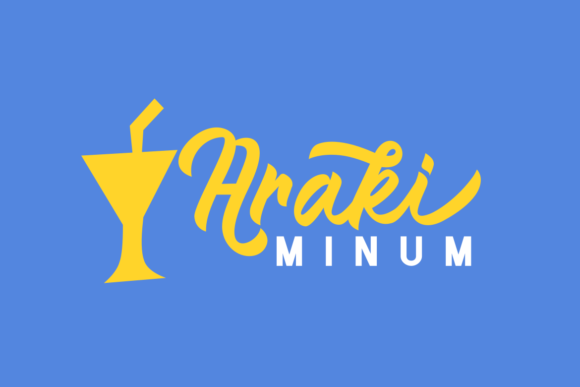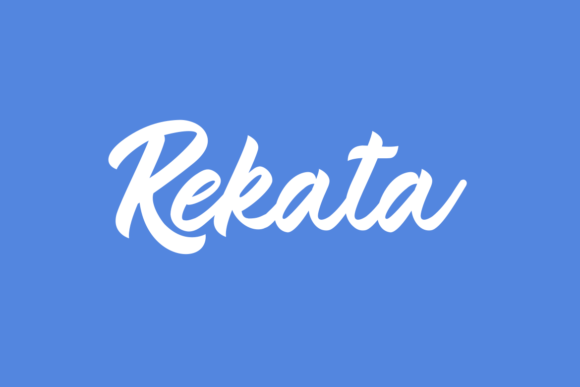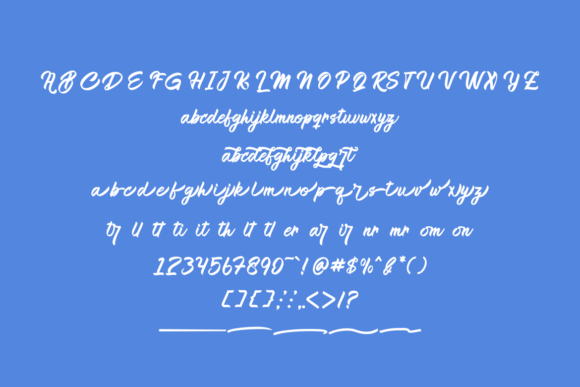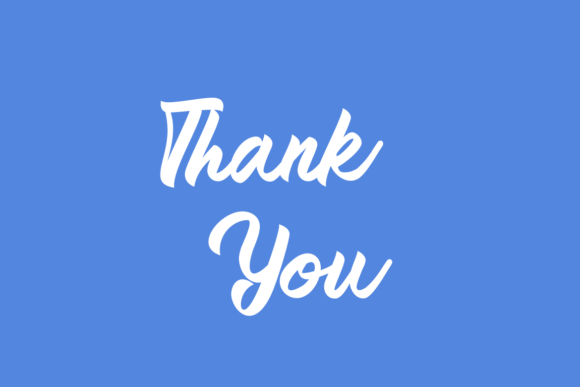
Blarak Font: Elevate Your Designs with a Touch of Handwritten Elegance
In the world of typography, handwritten fonts hold a special place for their unique ability to add a personal touch to any design. Among these, the Blarak Font stands out as a gem, offering a blend of elegance and playfulness that can elevate a wide range of projects. Whether you’re a designer looking for the perfect font for a logo, branding, or a crafter seeking an attractive typeface for invitations, watermarks, or wedding designs, Blarak is a versatile choice that promises to inspire.
The Charm of Blarak Font
Blarak is a handwritten font that embodies the essence of personal and creative expression. Its fancy and distinctive look makes it an ideal choice for projects that demand a touch of sophistication and uniqueness. From professional branding to personal stationery, Blarak’s charm lies in its ability to bring a sense of warmth and approachability to the text.
One of the key advantages of the Blarak Font is its versatility. It’s perfect for a myriad of applications including:
- Logos & Branding: Create a memorable brand identity with a logo that stands out.
- Photography: Add a professional touch to your photo captions or watermarks.
- Invitations: Make your invitations special with a personal and elegant touch.
- Advertisement: Capture attention with unique and stylish text.
- Product Design: Enhance your product labels or packaging with a distinctive look.
- Stationery: Elevate your personal or business stationery with class.
- Wedding Designs: Add romance and elegance to your wedding invitations, programs, or decorations.
- Labels & Special Events: Perfect for any occasion that requires a personal and stylish touch.
Blarak Font comes with PUA (Private Use Area) encoding, making it incredibly user-friendly. This feature allows you to access all the cute glyphs and swashes easily, giving you the flexibility to experiment with different styles and combinations without hassle. Whether you’re looking to add a playful swash to your design or require a specific glyph to match your theme, Blarak’s PUA encoding ensures you’re equipped with the tools you need.
Rich in Features
Beyond its beautiful appearance, Blarak Font is also rich in features that make it a valuable asset for designers:
- Alternate Glyphs: Offers variations of letters and symbols, allowing for diverse design options.
- Ligatures: Combines letters and symbols in a unique way, adding an artistic flair to your text.
Getting Inspired with Blarak
The unique look of Blarak Font is sure to inspire a plethora of creative ideas. Designers and crafters can experiment with the font in various contexts, from digital platforms to print media. Its handwritten nature lends itself well to:
- Storytelling: Bring narratives to life with a font that feels personal and engaging.
- Branding: Create a cohesive brand voice that resonates with your audience.
- Art Projects: Incorporate Blarak into your artwork for a distinctive touch.
Blarak Font is more than just a typeface; it’s a tool for creative expression. Its elegant yet playful design, combined with its versatility and rich features, makes it an excellent choice for a wide range of projects. Whether you’re a professional designer or a DIY crafter, Blarak invites you to explore new dimensions of creativity. So, get inspired by its unique look and let Blarak Font be the handwritten elegance that takes your designs to the next level.